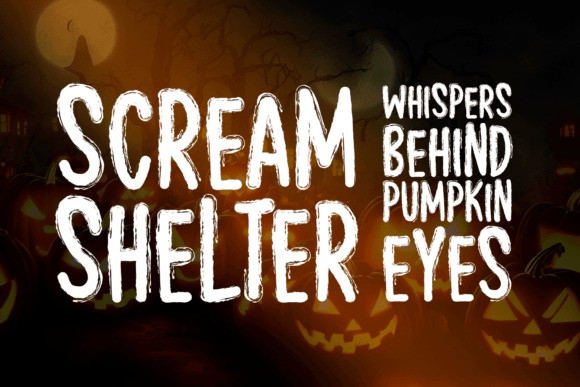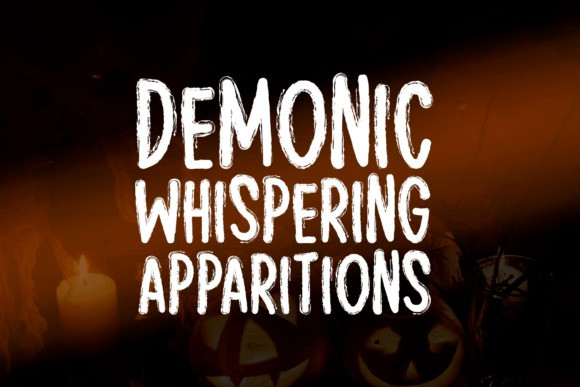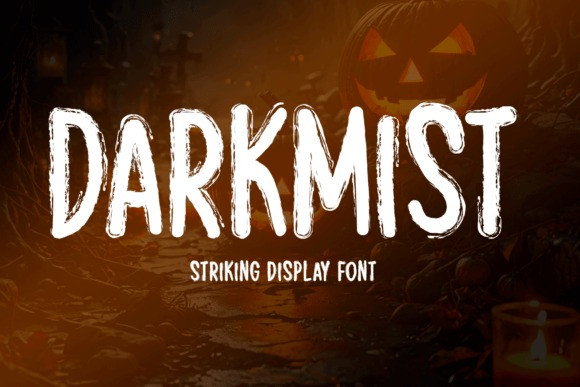
Darkmist Font
Darkmist Font is a display font designed to capture attention with its unique and edgy style. It works seamlessly across various creative projects, including stationery, logos, t-shirts, print materials, website headers, flyers, posters, music covers, and more. Its dramatic presence makes it a great choice for designs that need a touch of mystery and impact.